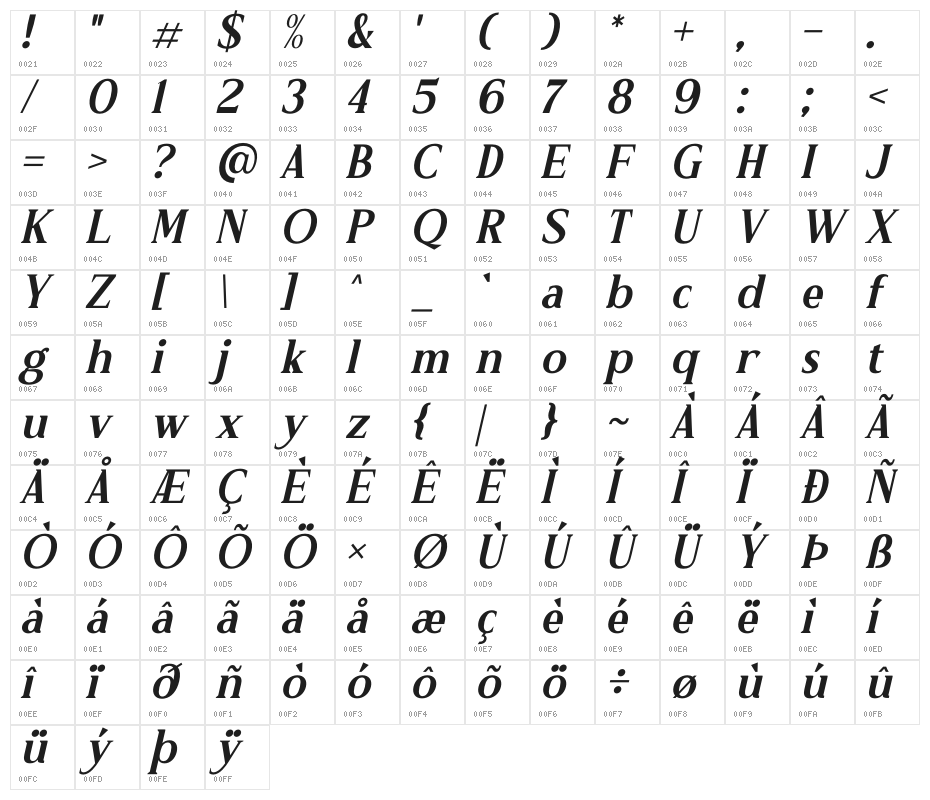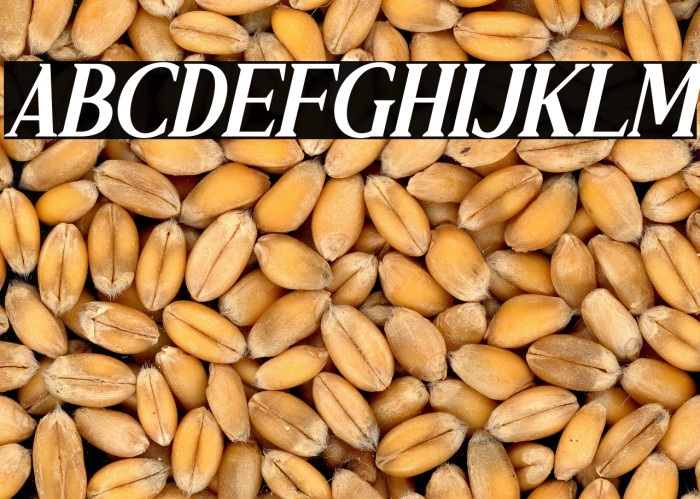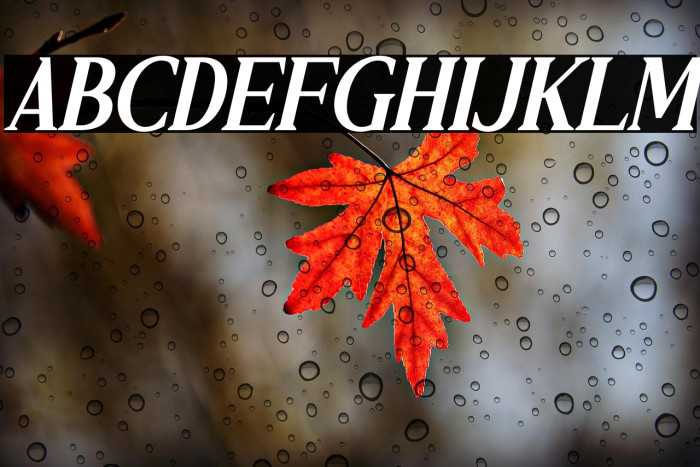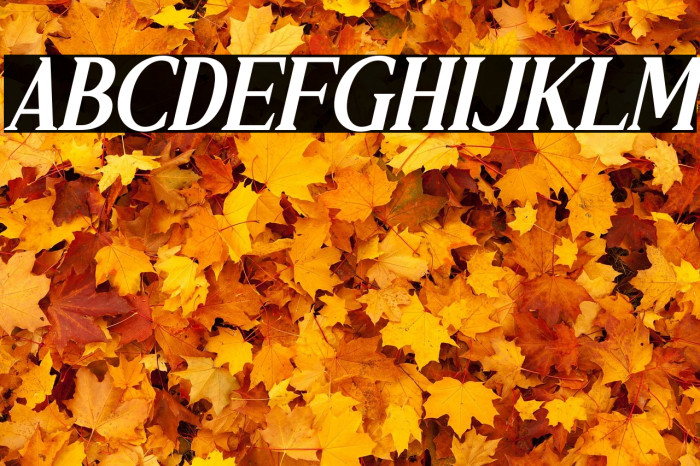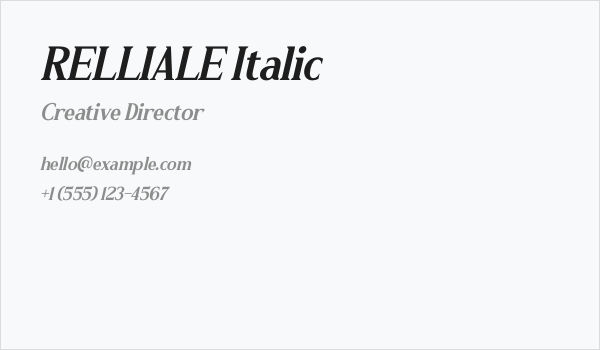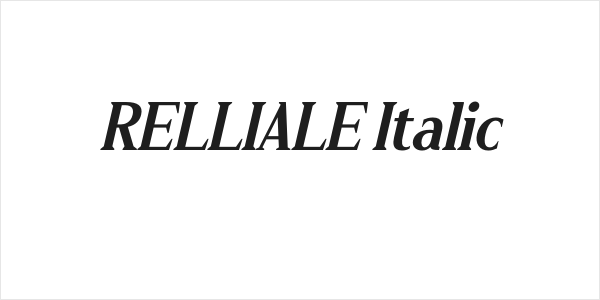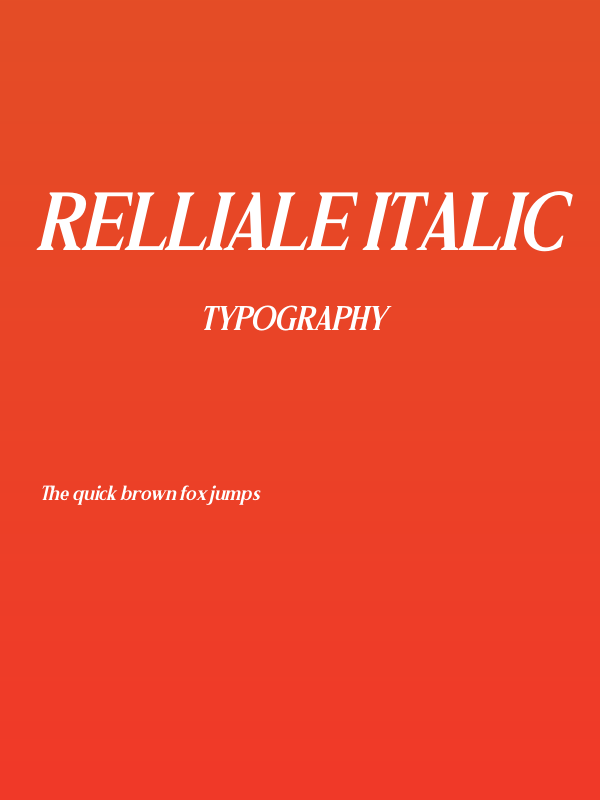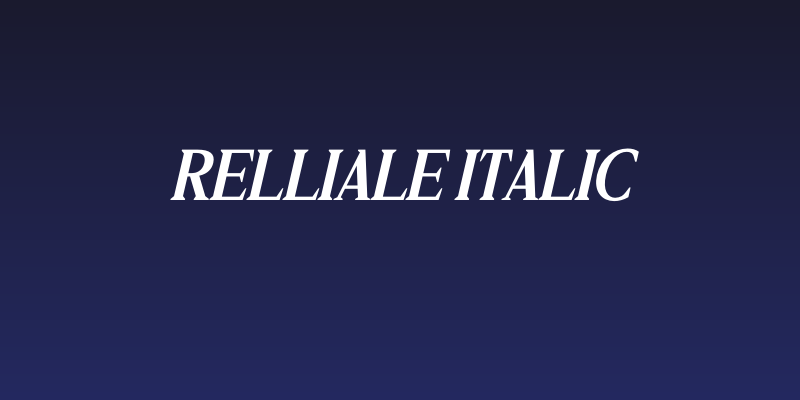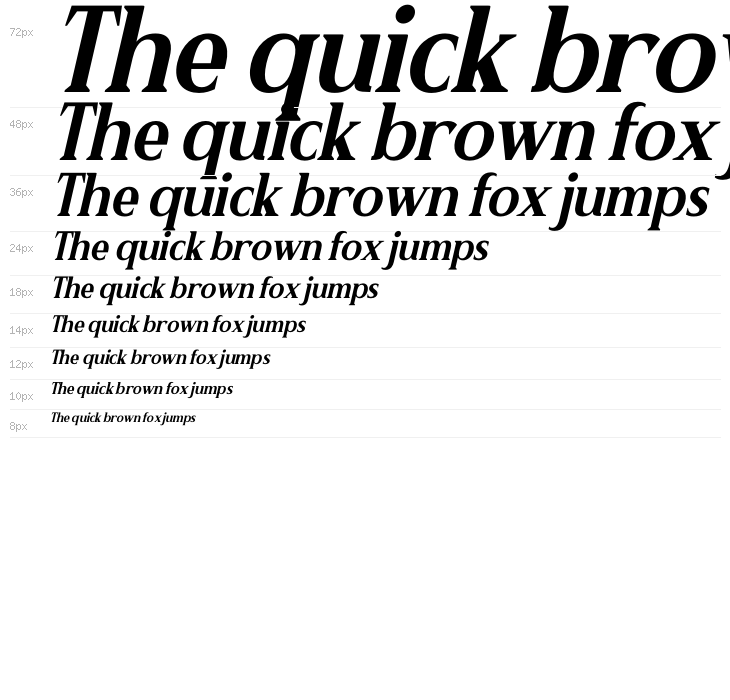
RELLIALE Italic Font
RELLIALE Italic Description
This font features a classic serif style with elegant, flowing lines that give it a sophisticated and timeless appearance. The italicized form adds a sense of motion and grace, making it suitable for formal and refined applications. The uppercase letters are tall and commanding, while the lowercase letters maintain a consistent and harmonious flow. The numerals are clear and well-defined, ensuring readability. Special characters are designed with the same attention to detail, providing a cohesive look across all glyphs.
| Use Case | Headlines, Logos, Editorial design |
| Proposed Projects | Ideal for wedding invitations, luxury branding, editorial design, and formal event programs. |